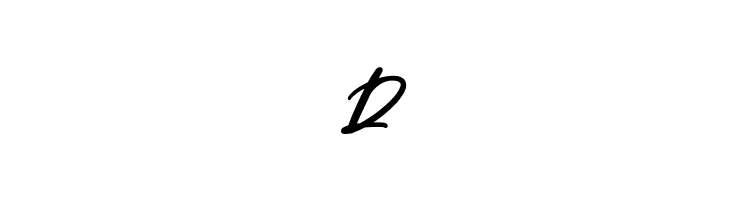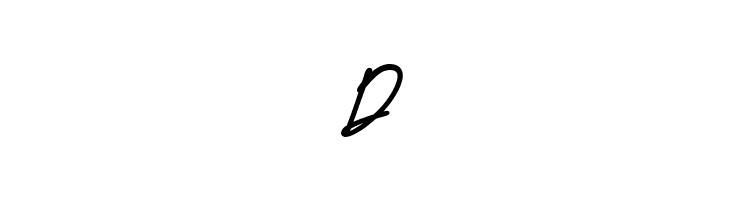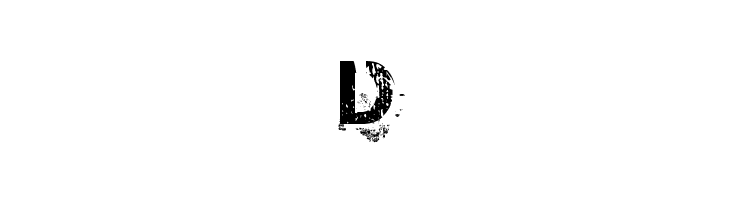
A fluid and elegant script font with dynamic, flowing letterforms.
A bold, distressed font with a grunge texture and rugged appearance.
A modern, geometric outline font with uniform line thickness and a minimalist design.
A bold, rounded font with a modern and playful style.
A fluid and elegant script font with a handwritten appearance.
A flowing, cursive font with elegant, interconnected letters.
A graceful, flowing script font with elegant curves and delicate strokes.
A stylish, cursive font with elegant, flowing strokes.
A modern, elegant script font with flowing, cursive letters and stylish numerals.
A bold and expressive script font with fluid, interconnected strokes.